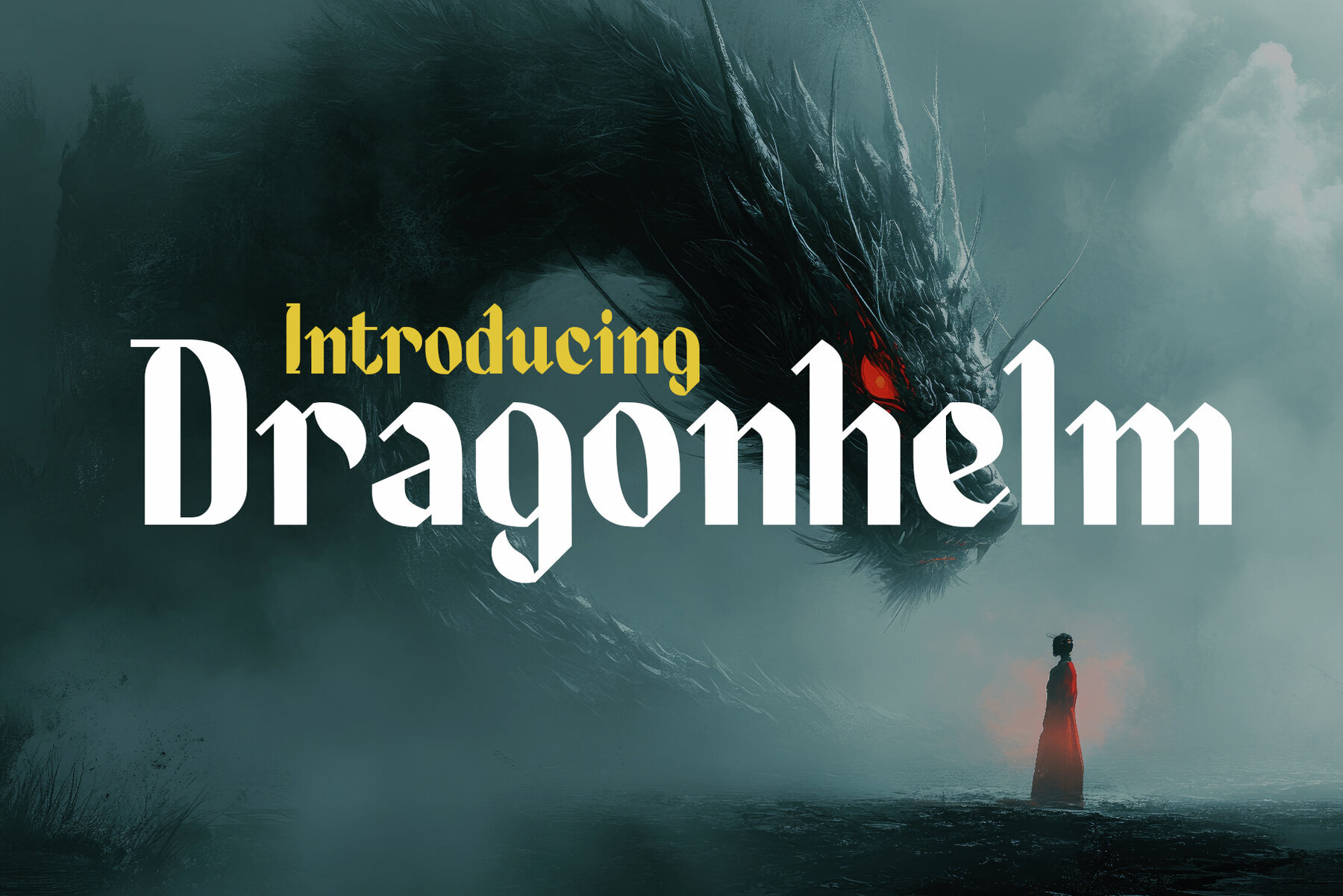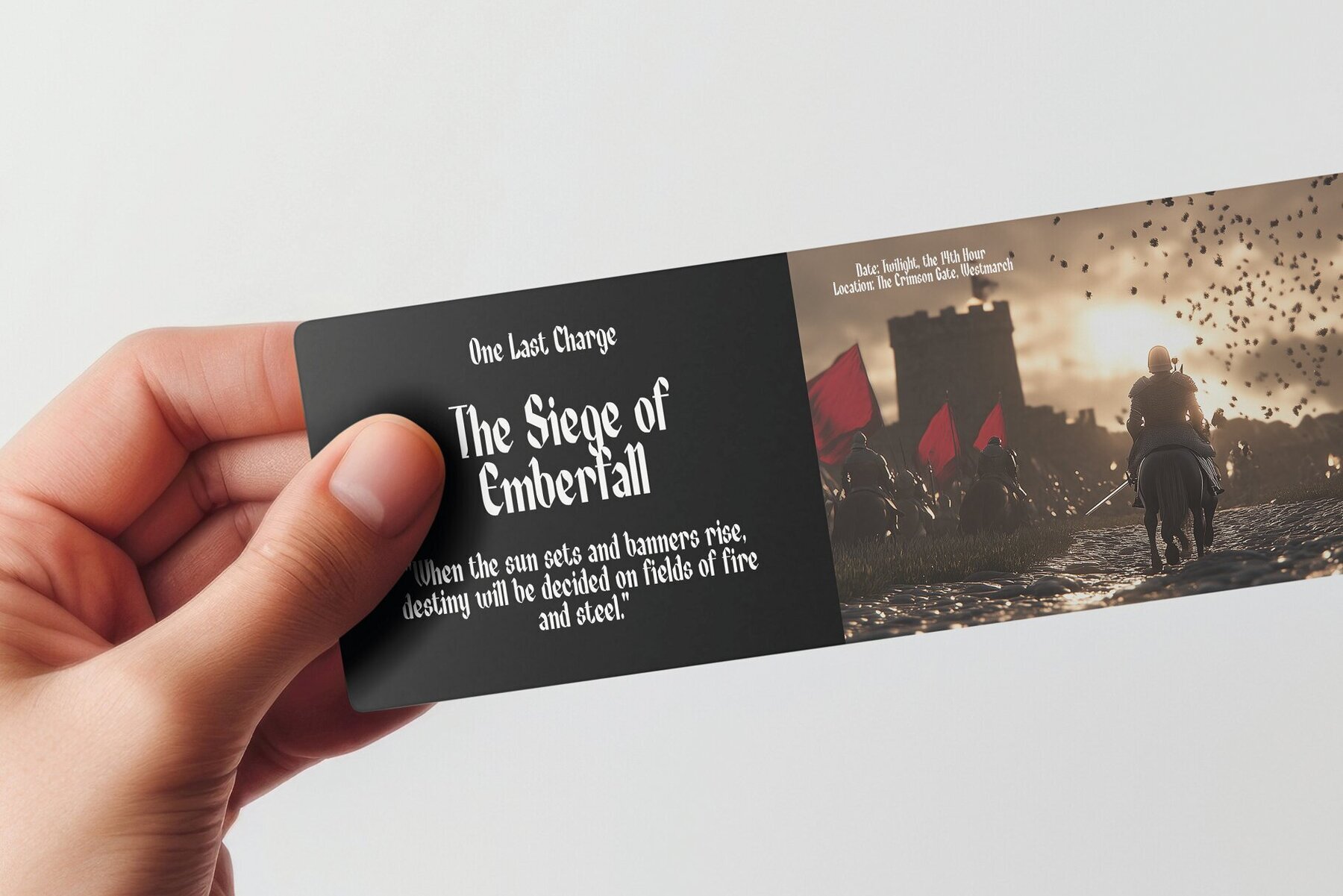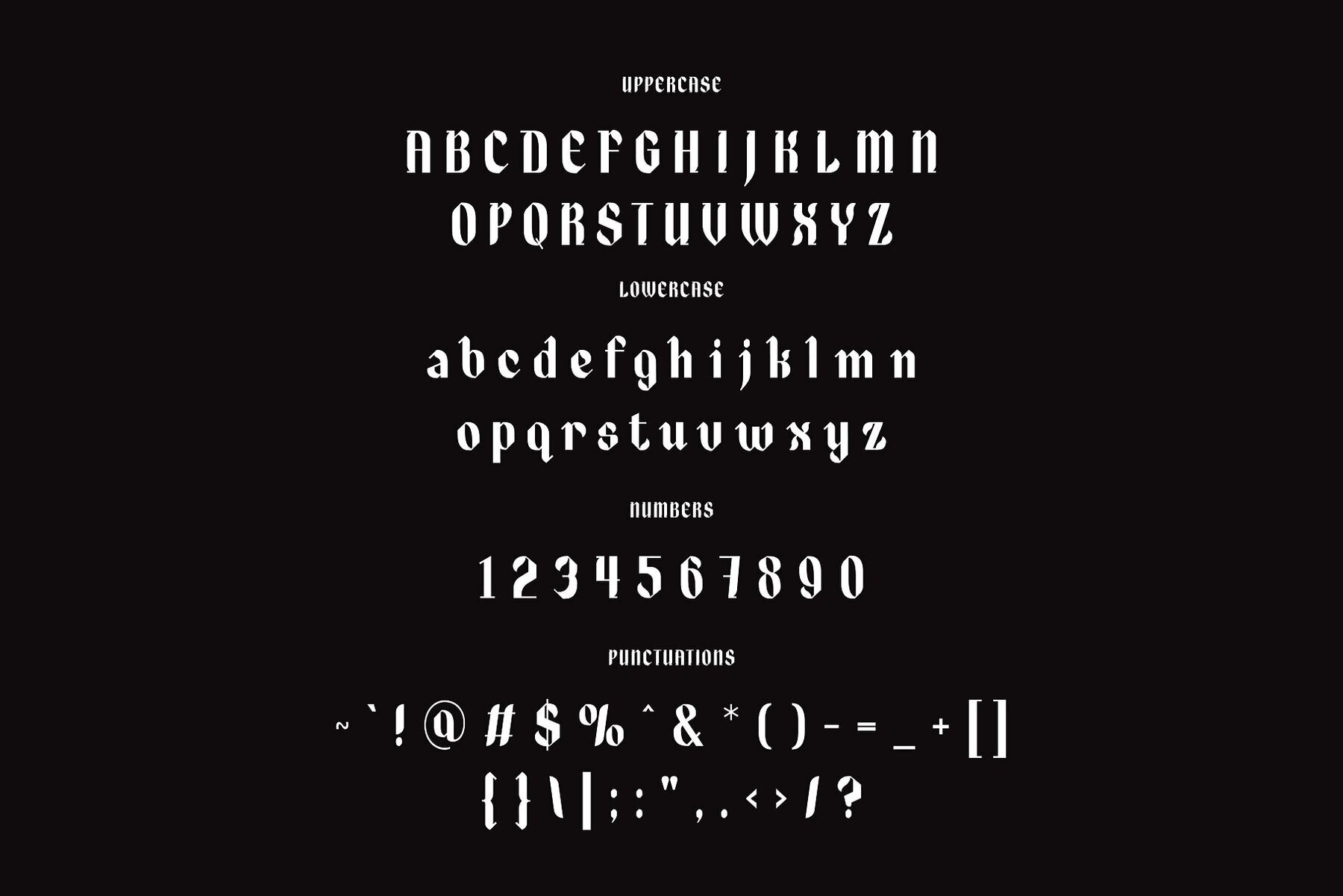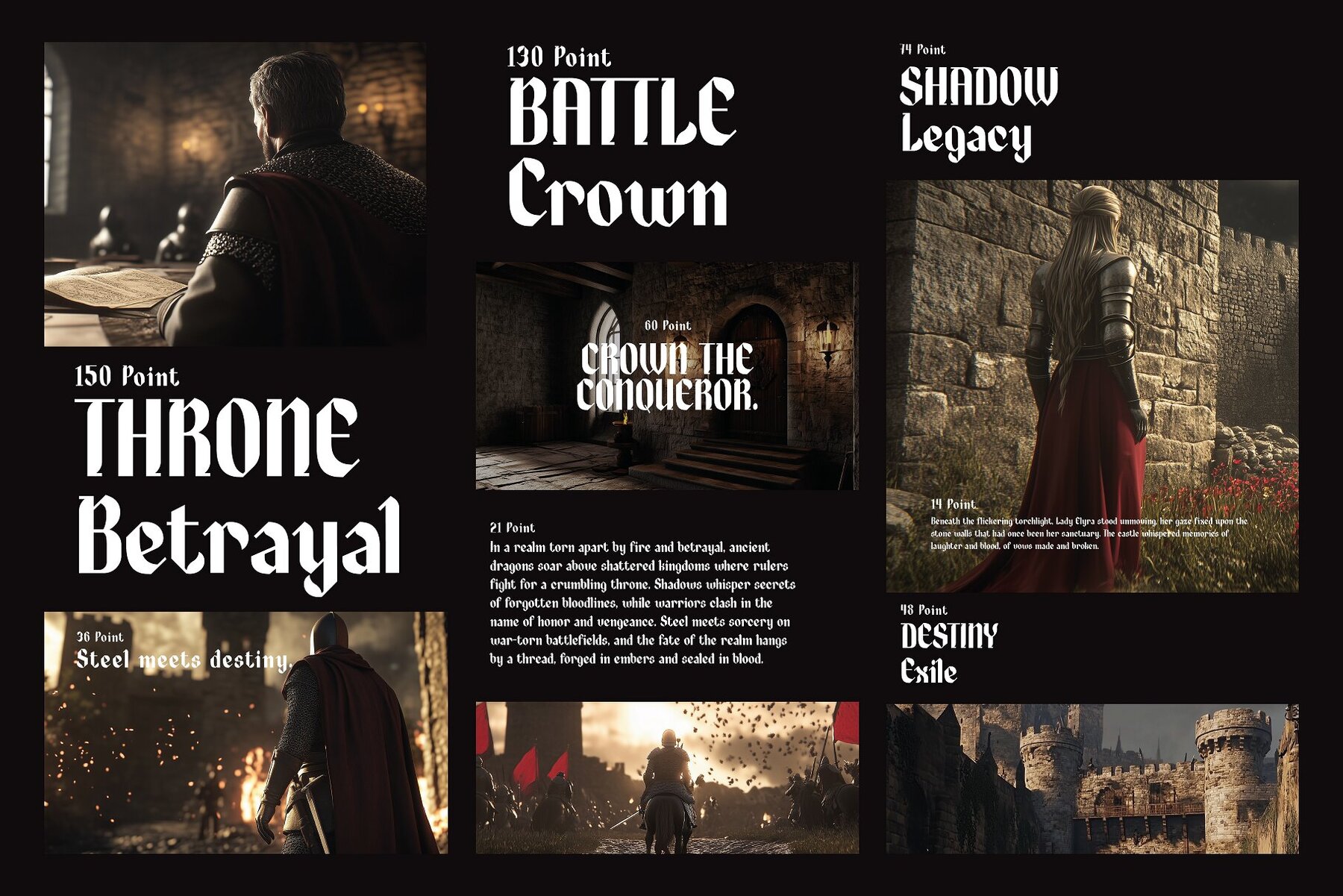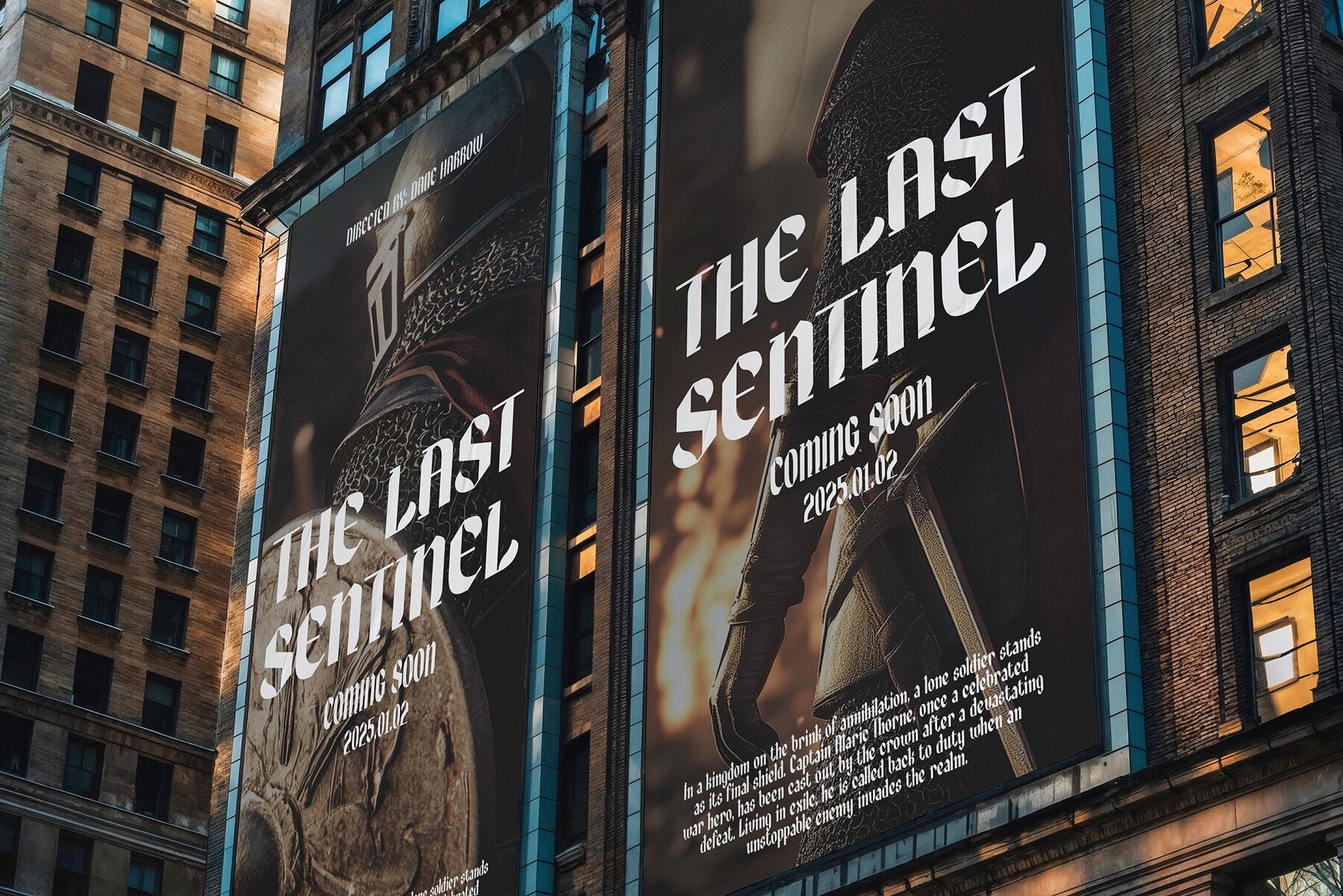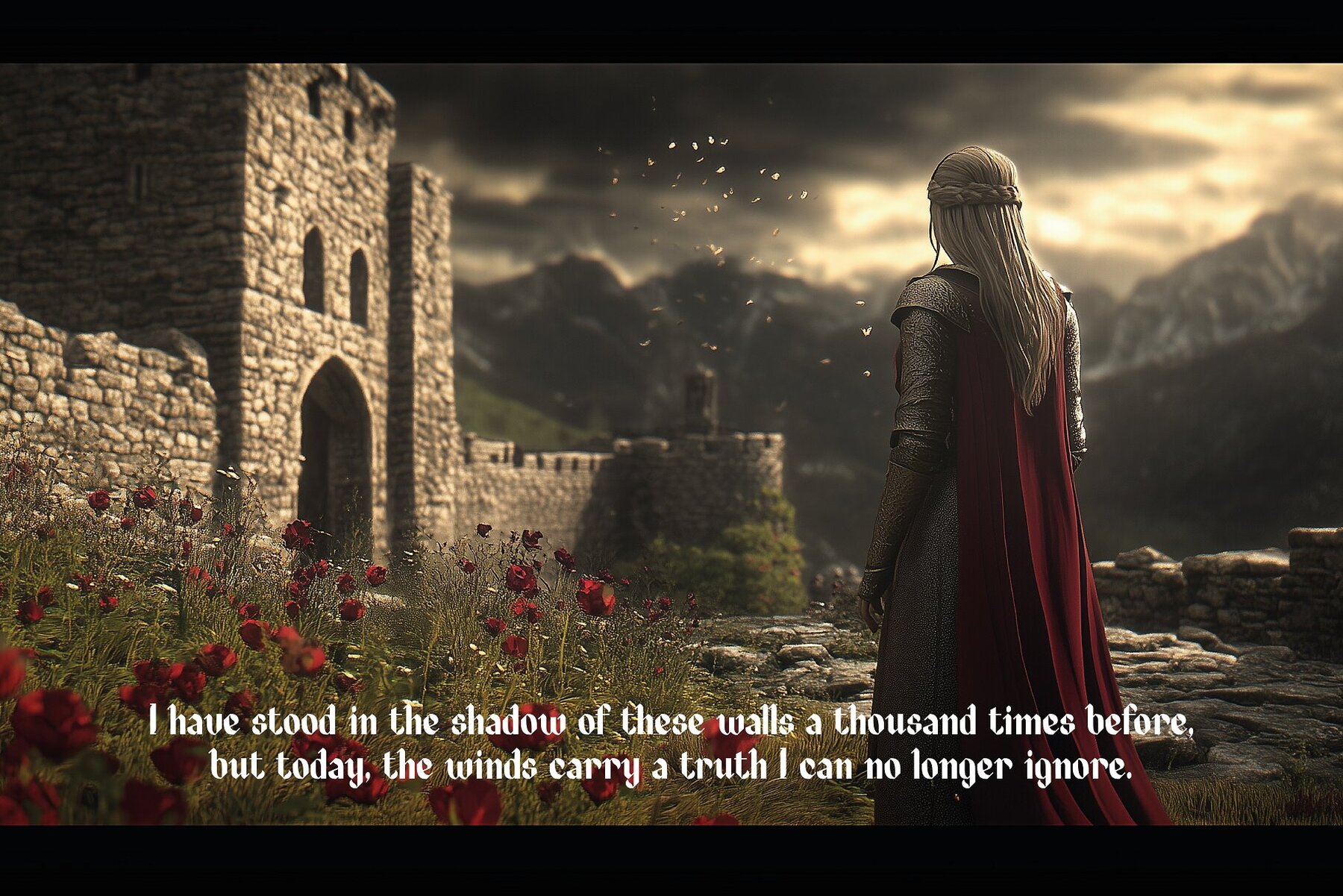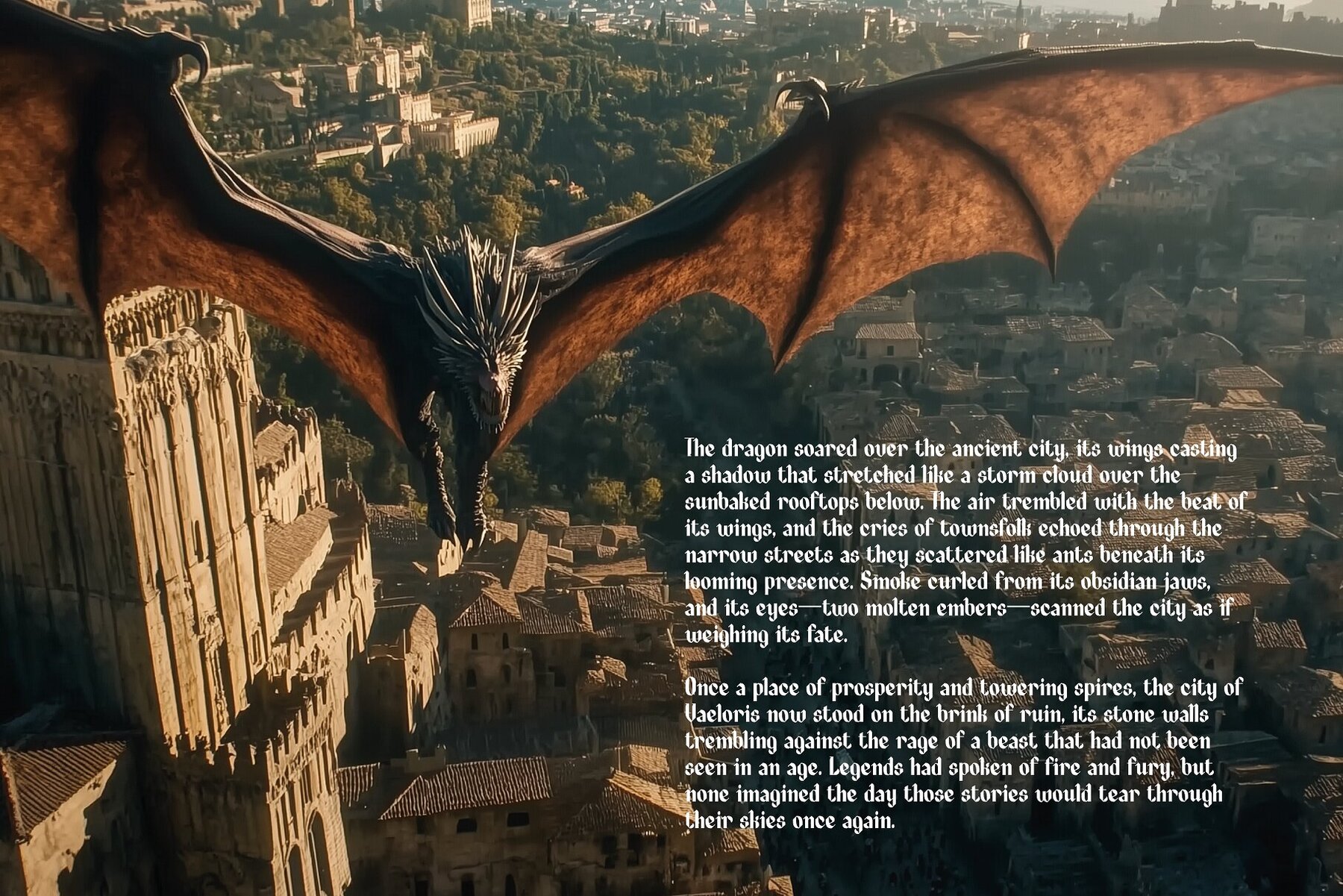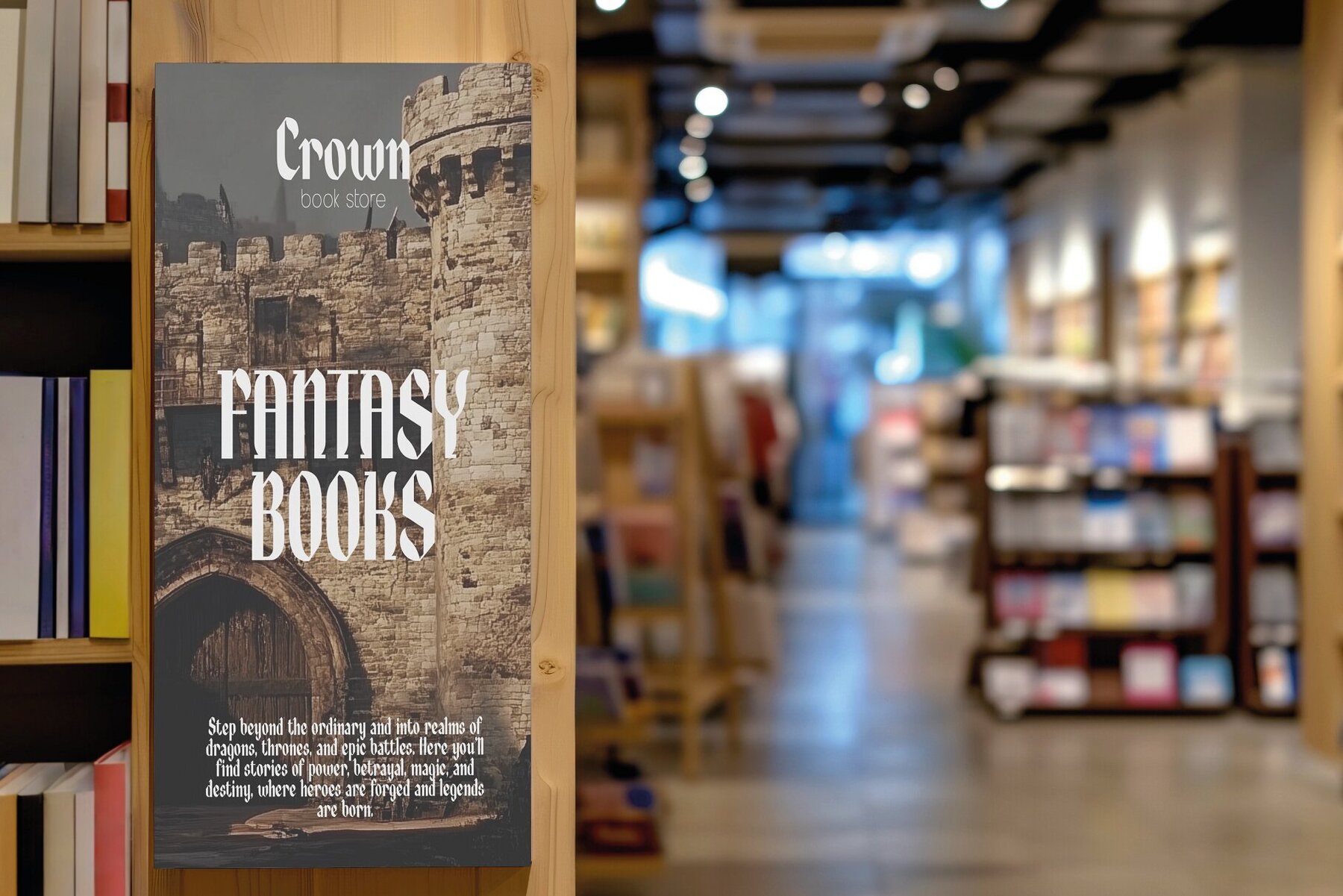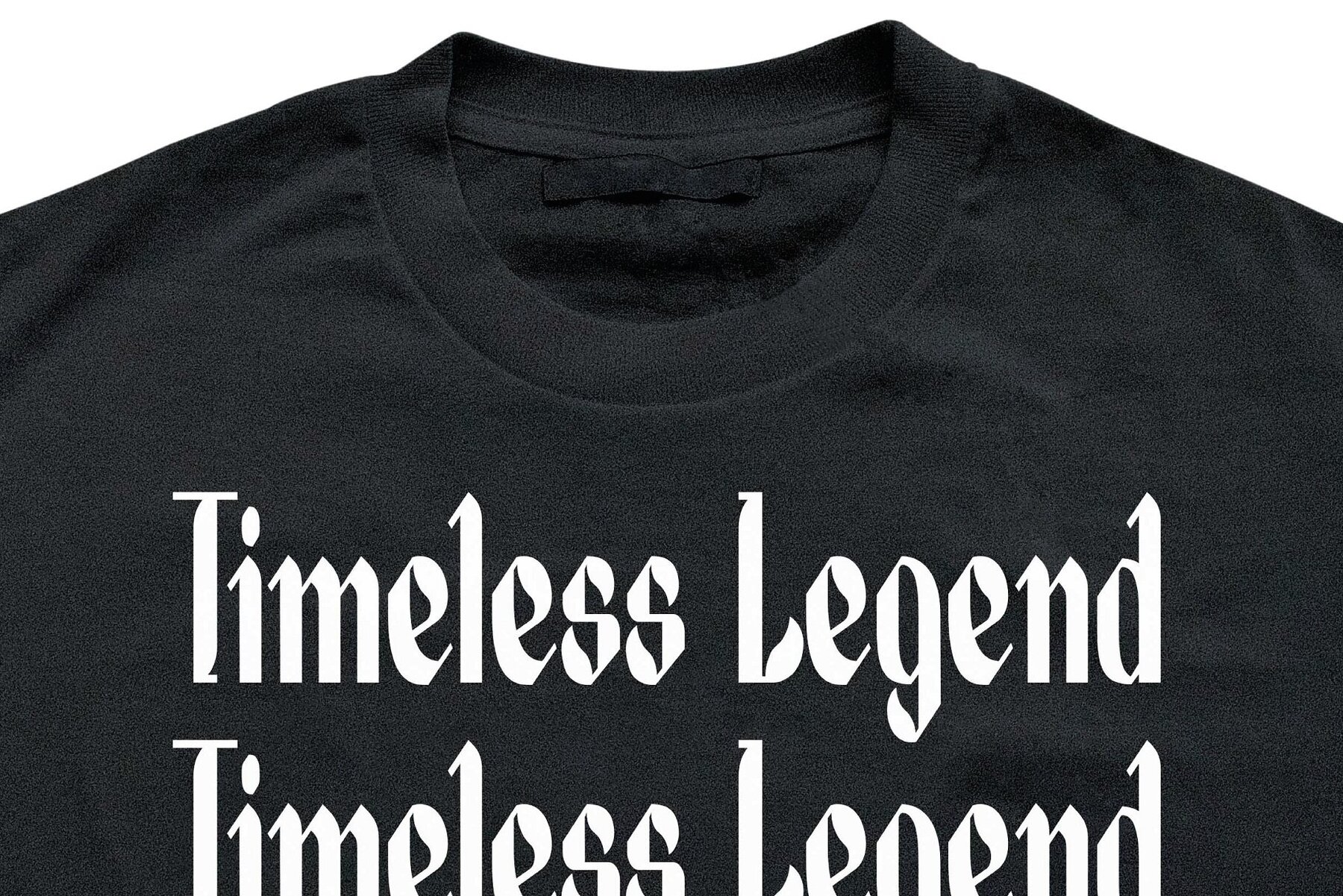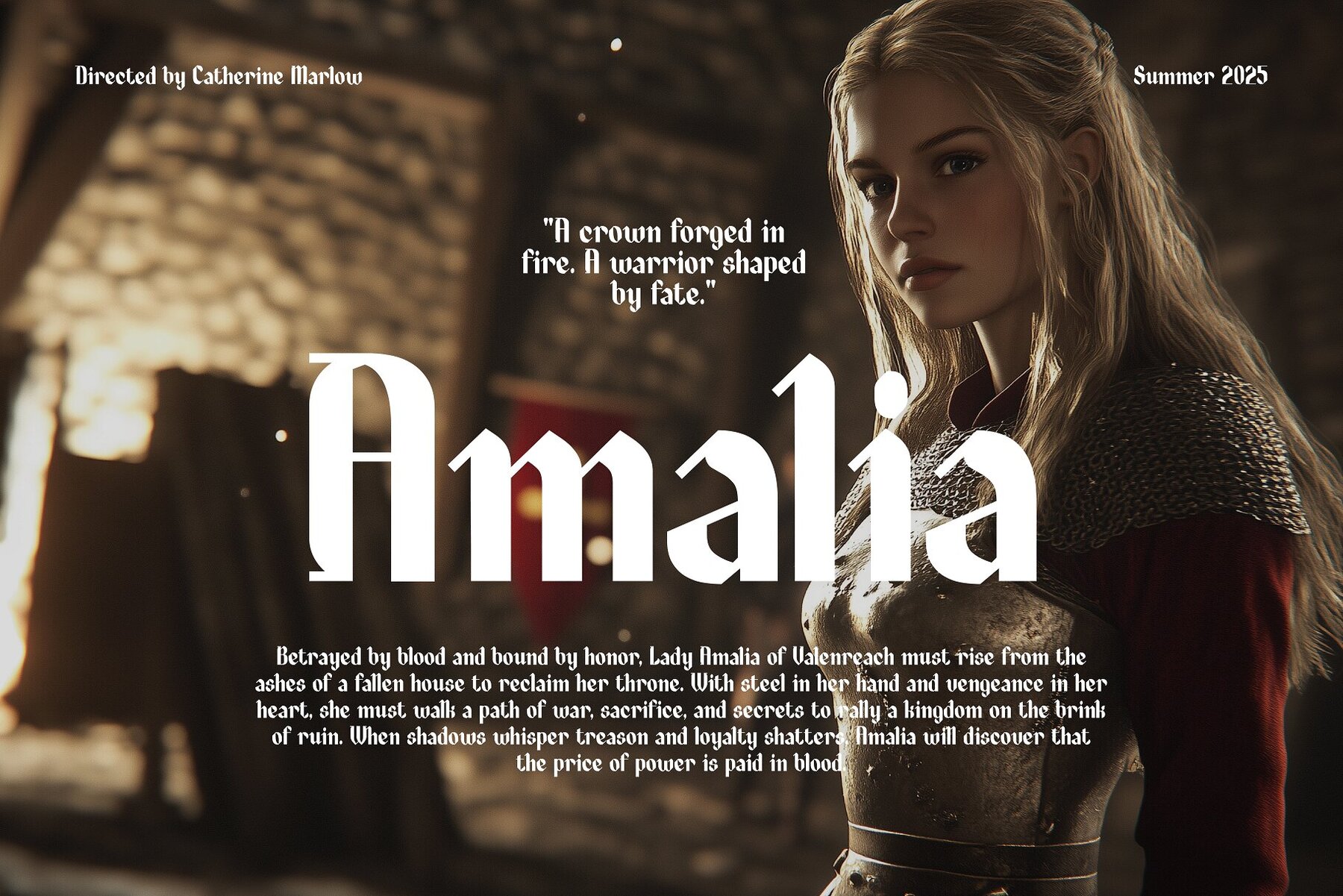
Dragonhelm Font
Dragonhelm
Discover the allure of Dragonhelm, a captivating medieval-inspired typeface that captures the grandeur of days gone by. Featuring intricate details and bold strokes, this font pays homage to the timeless beauty of medieval calligraphy. Dragonhelm is designed to capture attention and draw your audience into stories of knights, dragons, and ancient realms. Enhance your projects with Dragonhelm's unmatched elegance and dramatic flair. Whether you're creating a tale of adventure or conjuring the mystique of centuries past, this typeface offers a striking presence that commands notice. Immerse your audience in a world filled with castles, courage, and enchantment, and let the legend begin with Dragonhelm.Dragonhelm Typeface